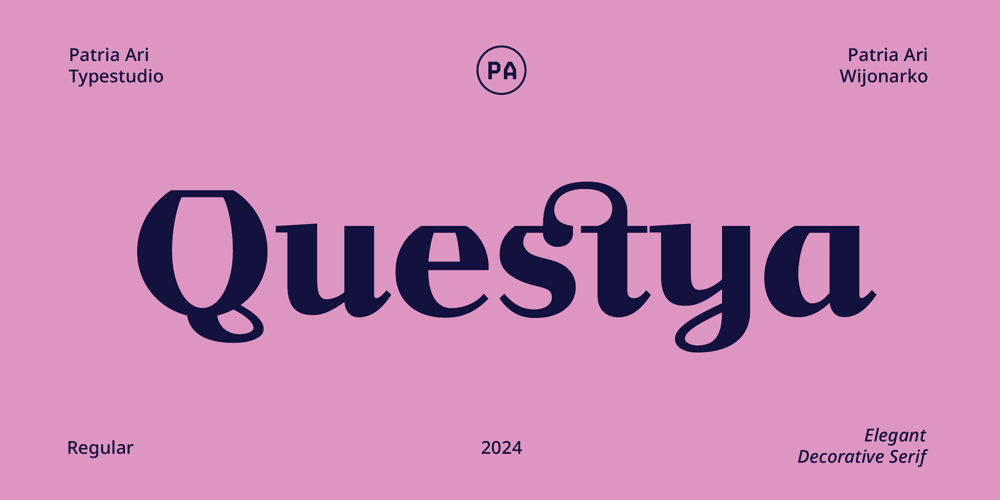
Questya Font Family was designed by Patria Ari Wijonarko and published by Patria Ari. Questya contains 1 styles and family package options. Questya is a modern and elegant decorative serif with combination of curvy and edgy form. The upper form of glyphs chopped and the lower form/shape curved. This font suitable for projects related to wedding, crafts, branding, or aesthetical preview.